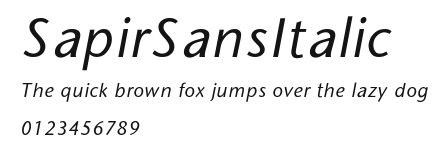
SapirSansItalic Preview
• Font Name: SapirSansItalic
• Full Font Name: SapirSansItalic
• PostScript Name: SapirSansItalic
• Copyright: An italic companion to SapirSans, designed by Eric Schiller, 1991.
About SapirSansItalic.ttf
SapirSansItalic.ttf is a modern, elegant sans-serif font designed for ultimate readability and visual harmony. Perfect for branding, headlines, web design, and print materials.